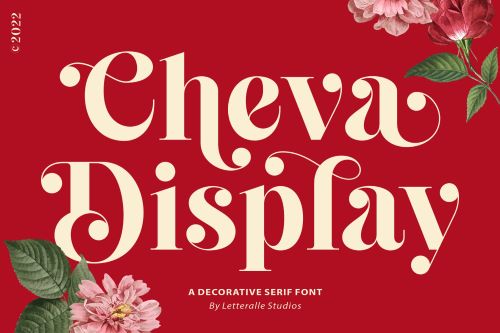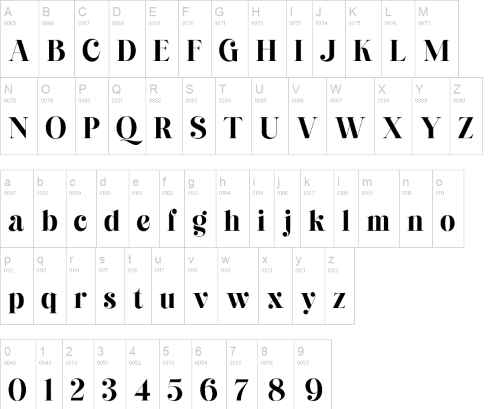
Cheva Display Font
Cheva Display Font is a bold, modern display typeface built for strong visual impact. With its clean geometry, sharp edges, and confident letterforms, it works perfectly for logos, headlines, posters, and branding. Cheva Display delivers a powerful, contemporary look that instantly draws attention.
➤ Style: Retro
Cheva Display font